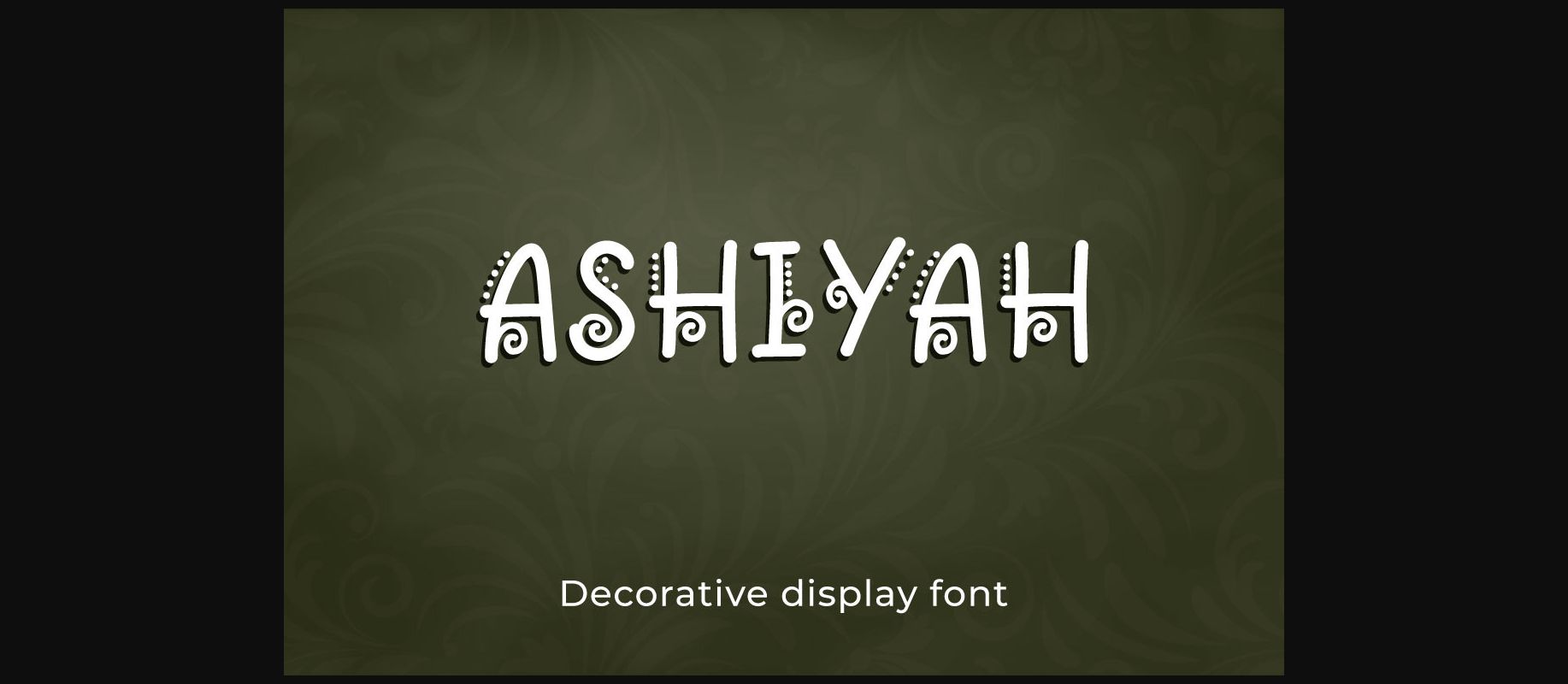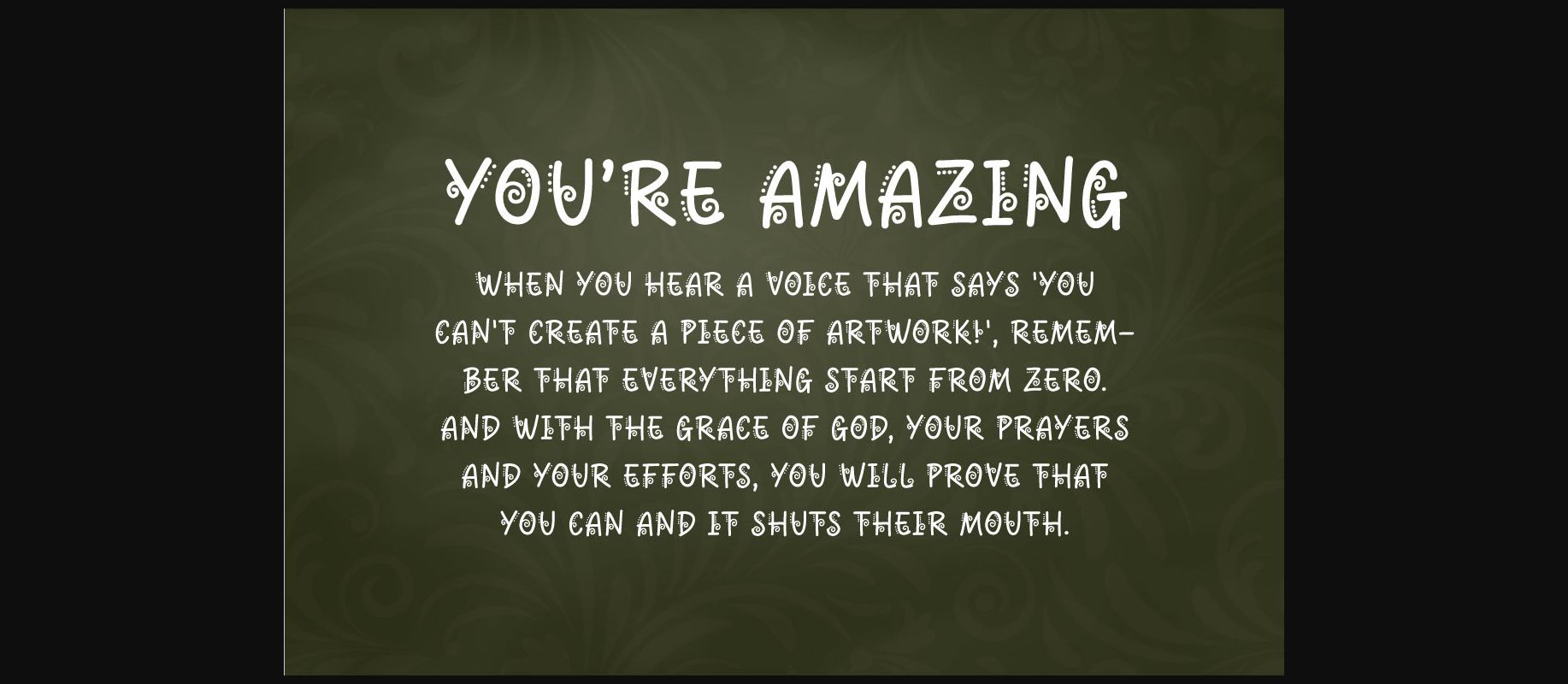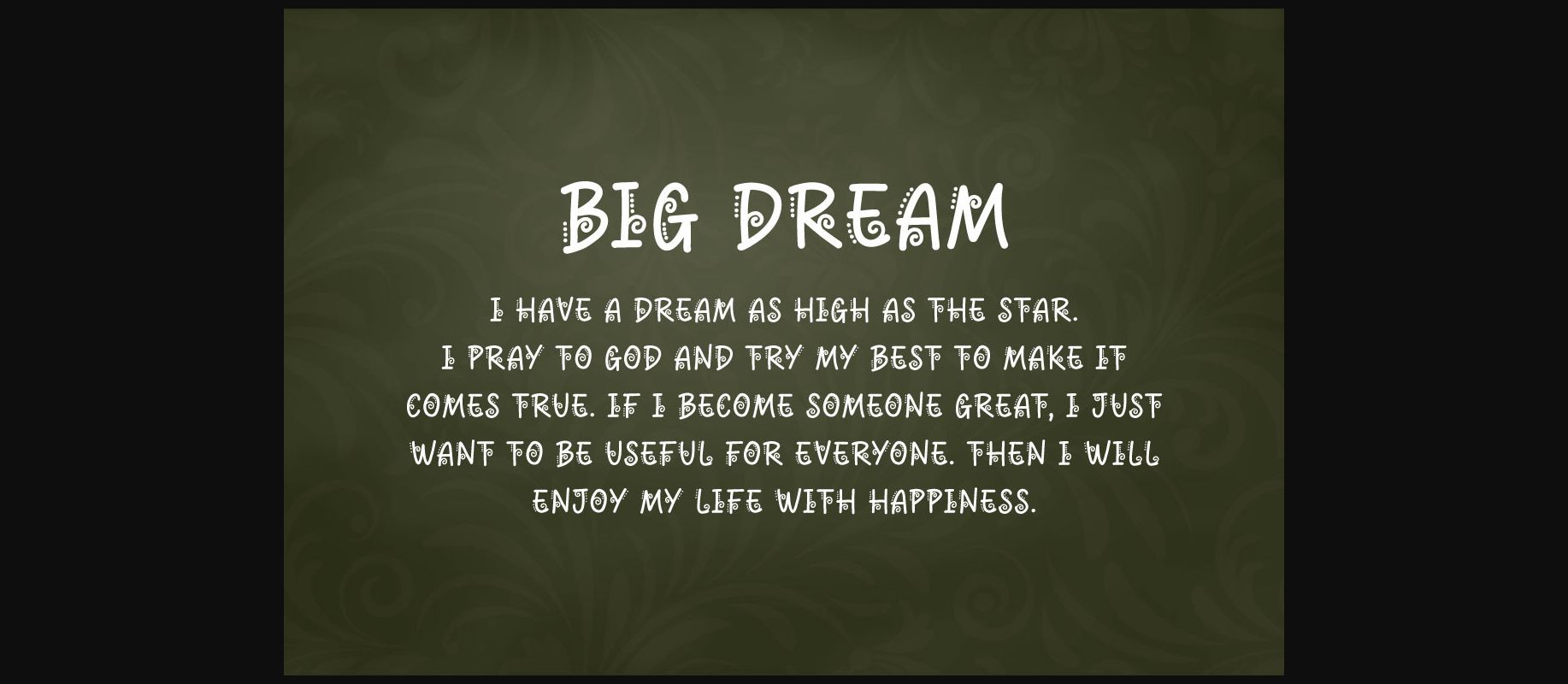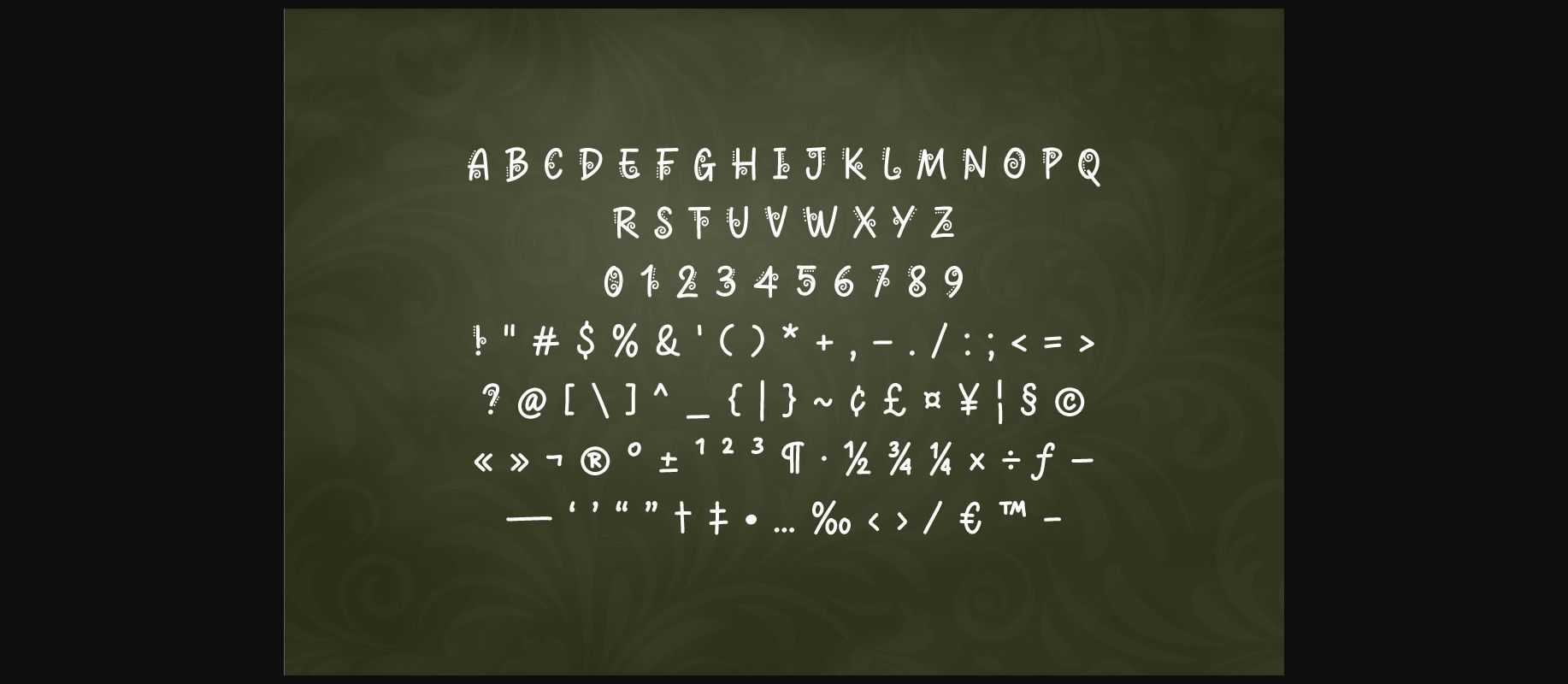
About Ashiyah Font
**Ashiyah** is a decorative handwritten display font.
Ashiyah can be used in any work such as flyers, book titles, advertisements, social media content, logo, and many more.